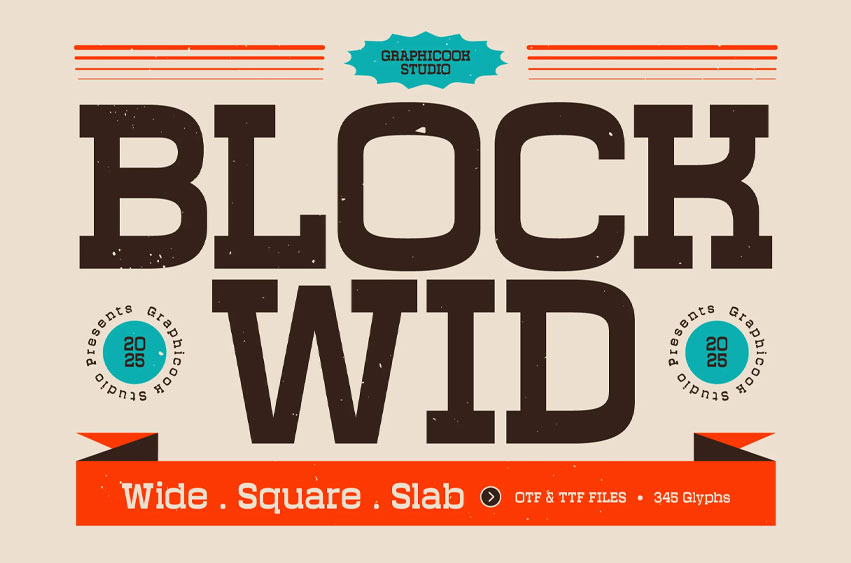
Blockwid Font
Blockwid Font is a slab serif font with a retro touch. Its firm, boxy letterforms create a strong and masculine impression, making it perfect for designs that require bold and impactful typography.
Blockwid is perfect for headlines, logotypes, magazines, packaging, quotes, movies, games, cover albums, book covers, and flyers, it’s a perfect solution for creating eye-catching designs that stand out in any context.